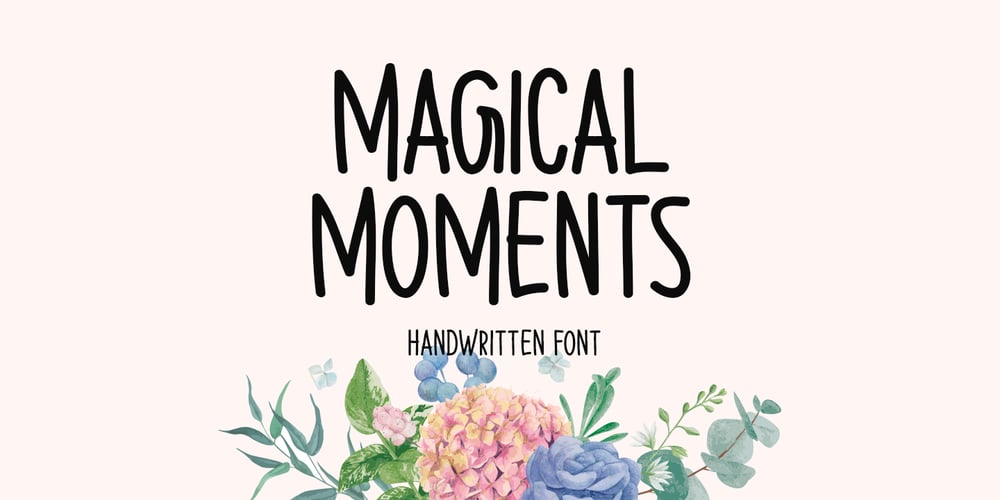
Magical Moments Font Family was designed by Md Shohail Bhuian and published by Seemly Fonts. Magical Moments contains 1 styles and family package options. Create a unique look for your brand with the Magical Moments font—a fresh, handwritten typeface that’s perfect for stationery, logos, t-shirts, print designs, website headers, photo frames, flyers, music covers, posters, image sliders, and more.